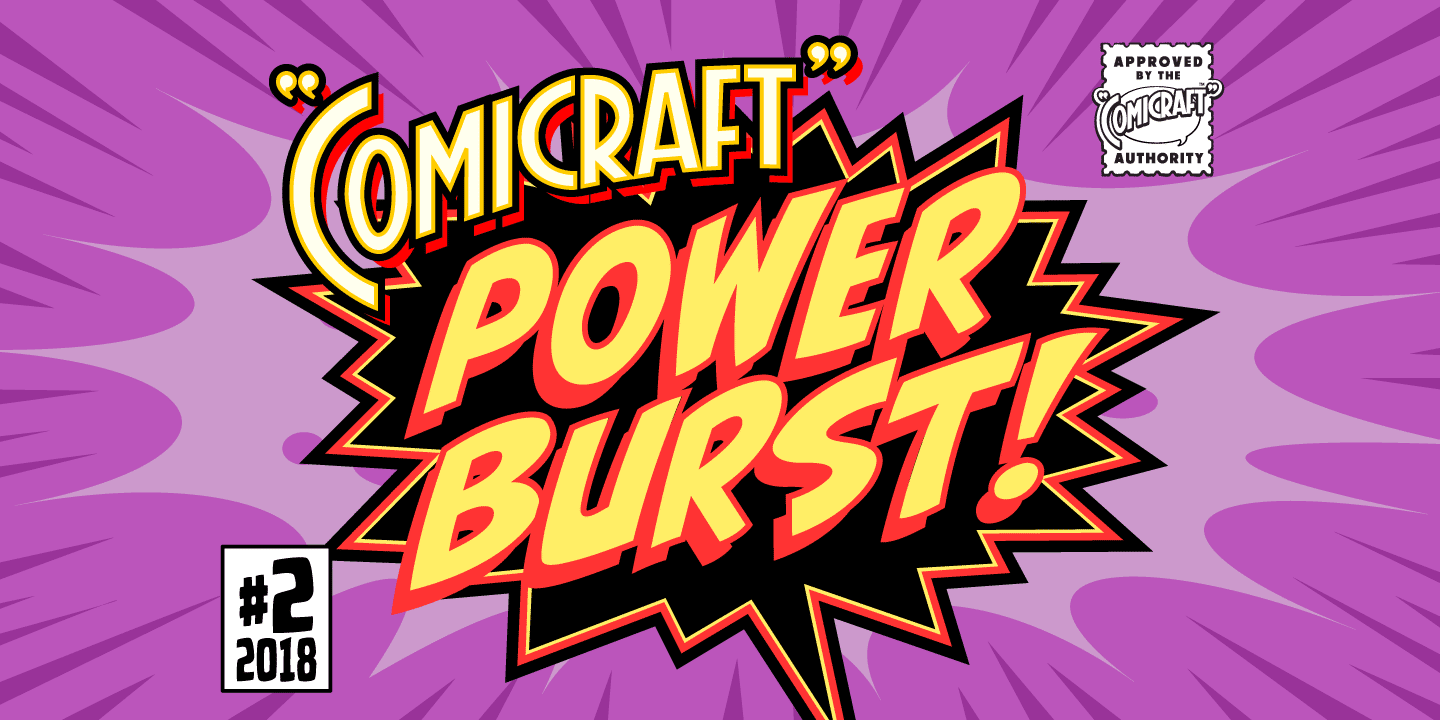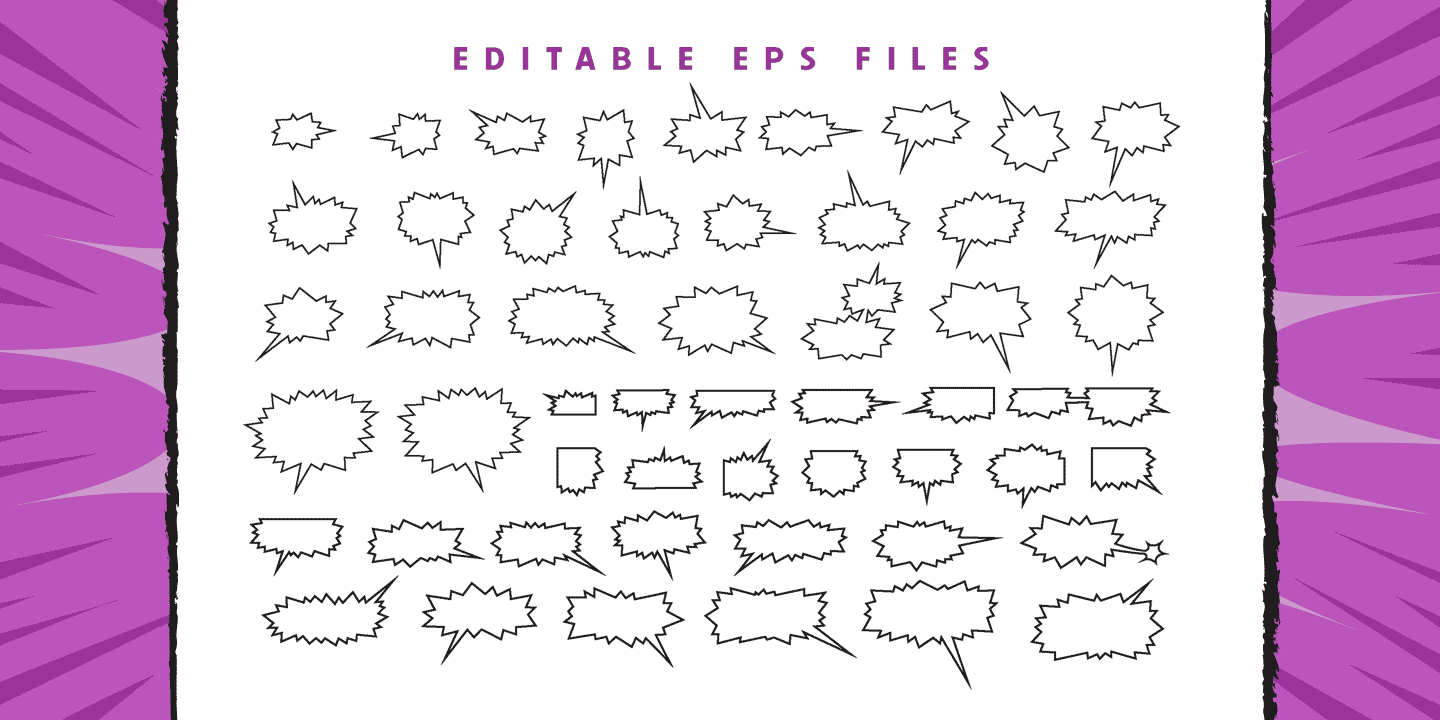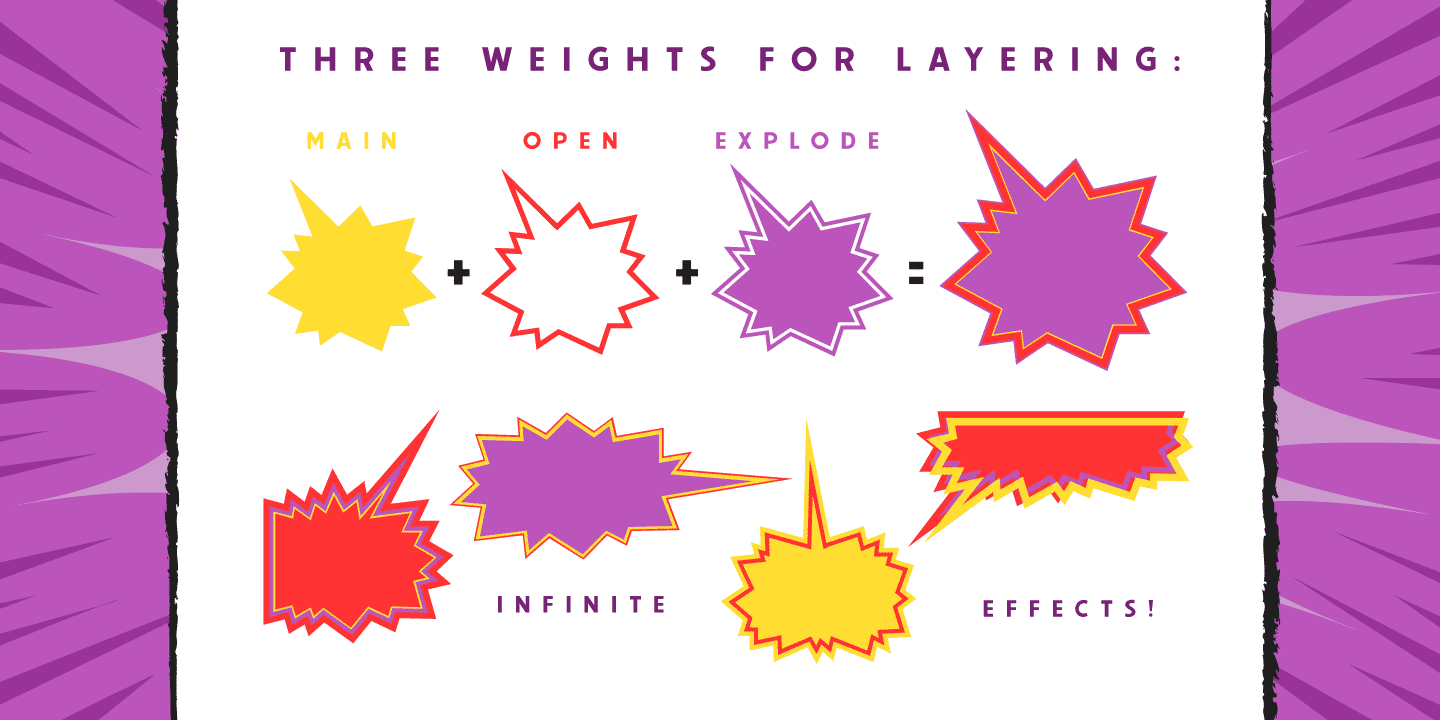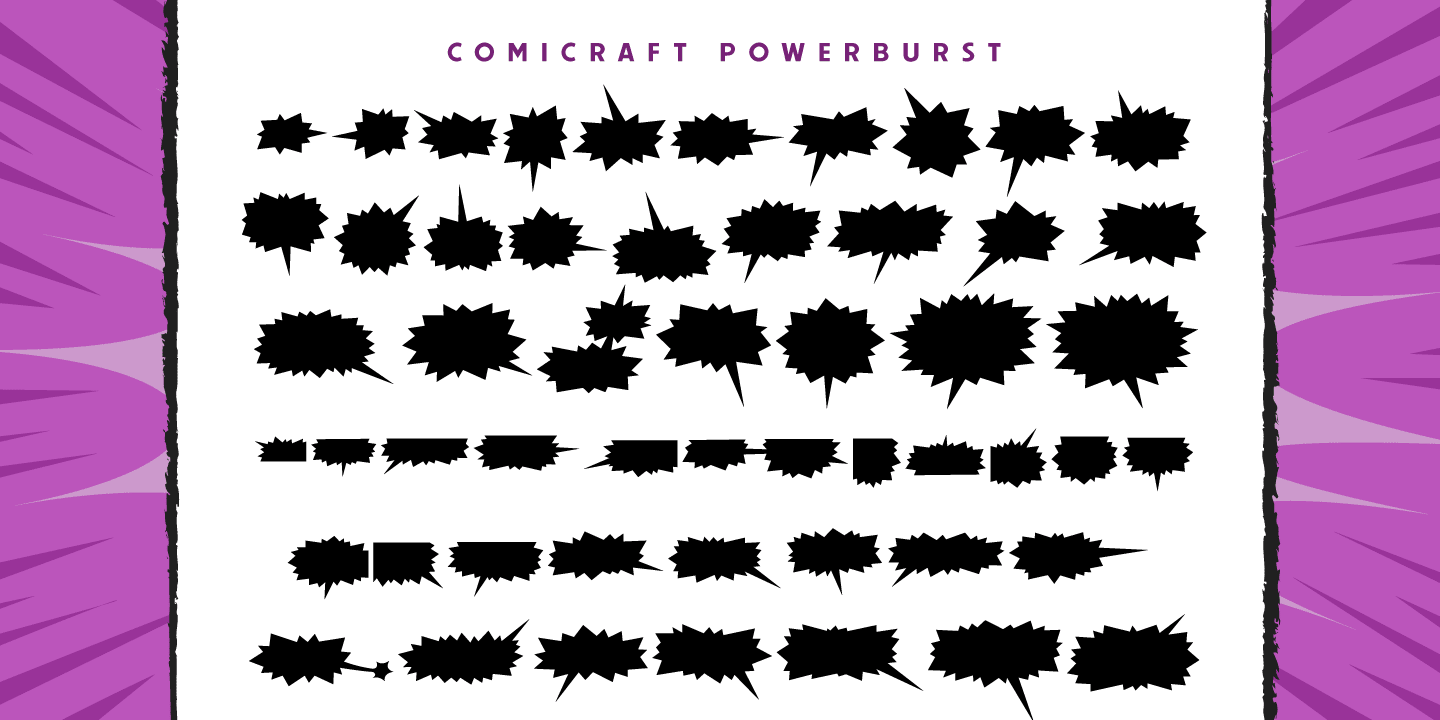
Comicraft Powerburst
FIFTEEN YEARS! Hundreds of fonts of Unique Design, Thousands of pages of Fine Lettering, Millions of satisfied customers and Elephantmen served! 2007 was Comicraft's fifteenth anniversary and we celebrated with the relaunch of the COMICRAFT website and the release of this font.
A font that's not just a bunch of letters arranged in alphabetical order... this one's Carefree, Original, Mirthful and Interesting, it's Clever, it's a little bit Raunchy, it's Adventurous, Friendly and Tenacious all at the same time -- and if that doesn't spell COMICRAFT, then we just didn't eat enough chocolate today.